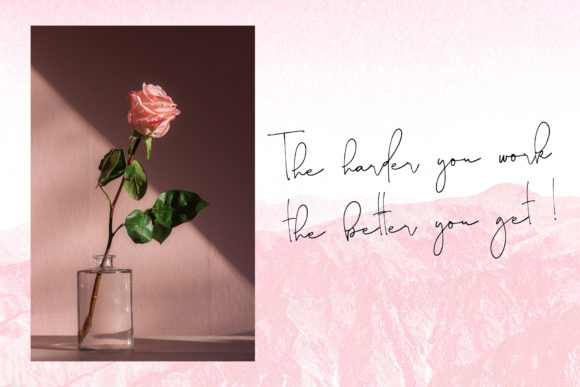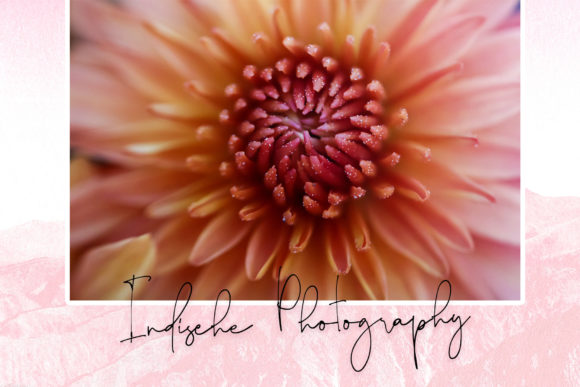
Shadow Blush Font
db-ku.com - Script & Handwritten -- Shadow Blush is a thin lettered and neat handwritten font. Add this fashionable and genuine font to each of your favorite creations. Fall in love with its incredibly versatile style and use it to create spectacular designs!